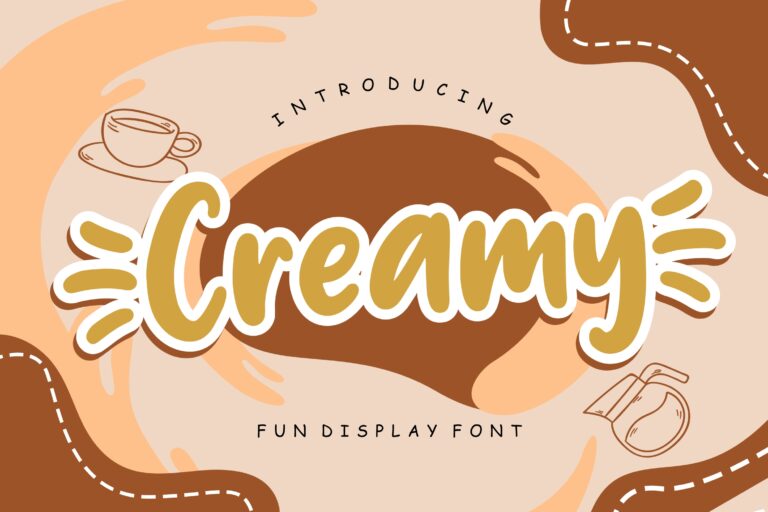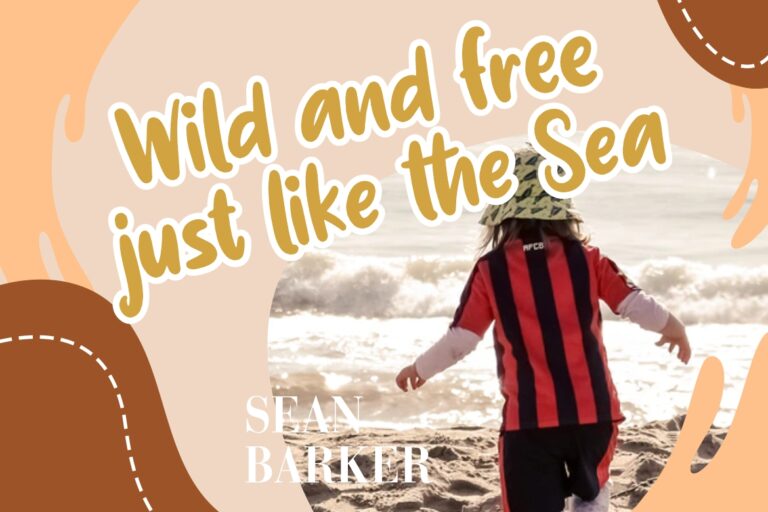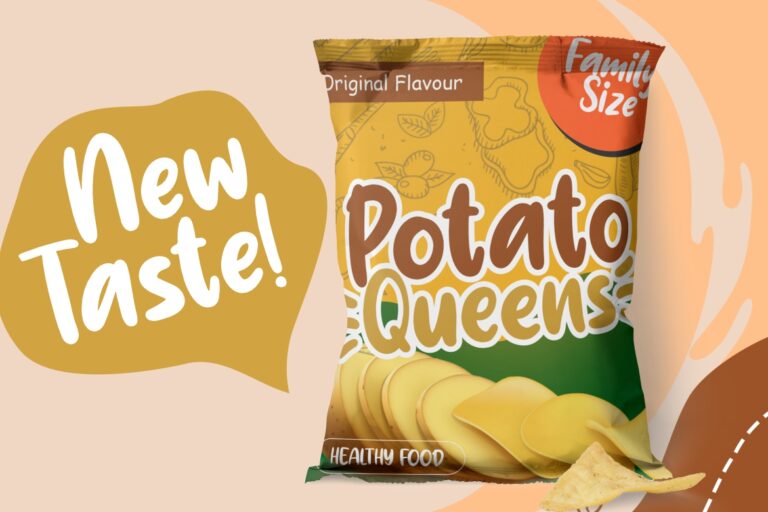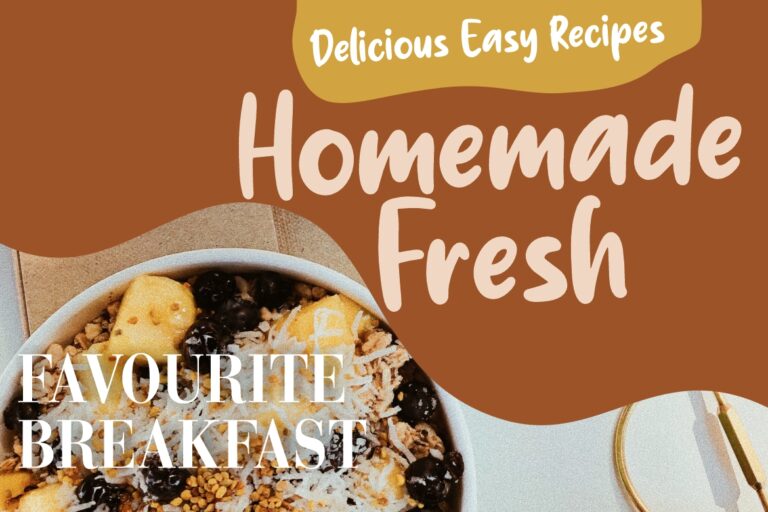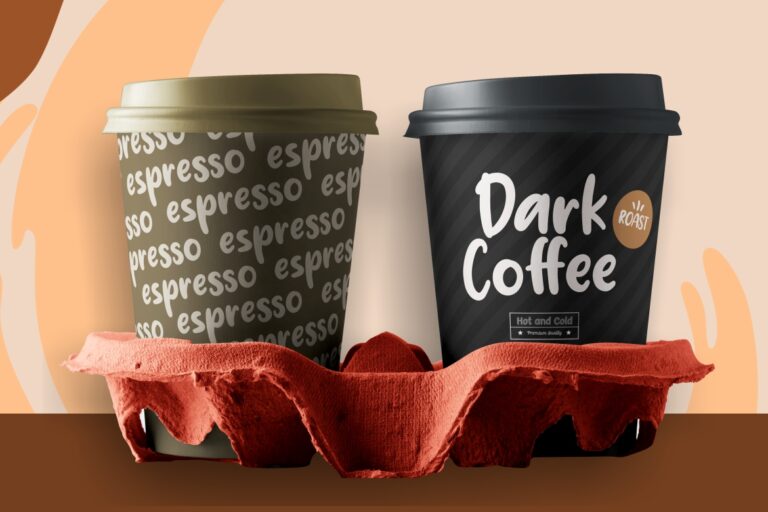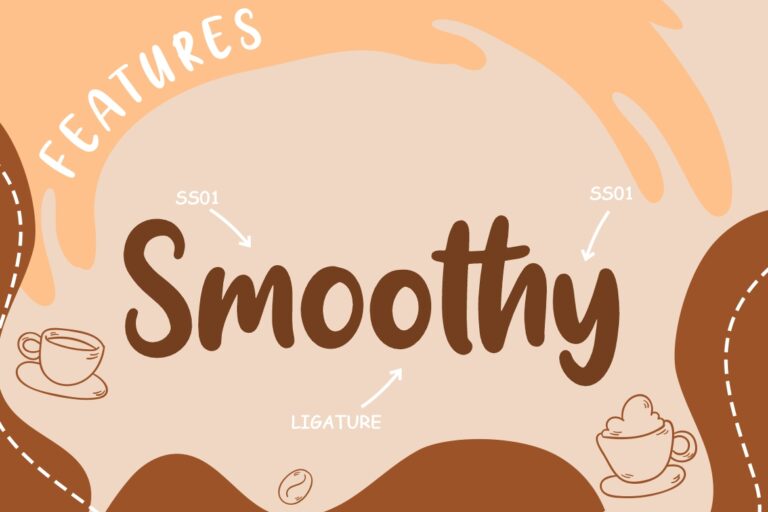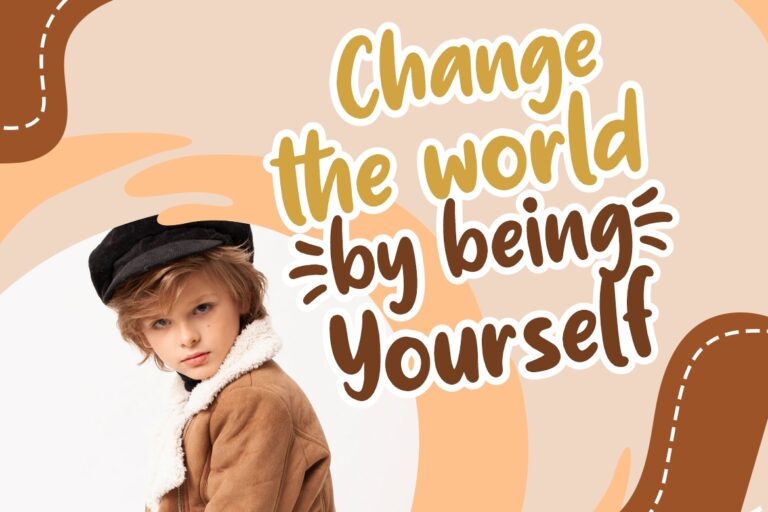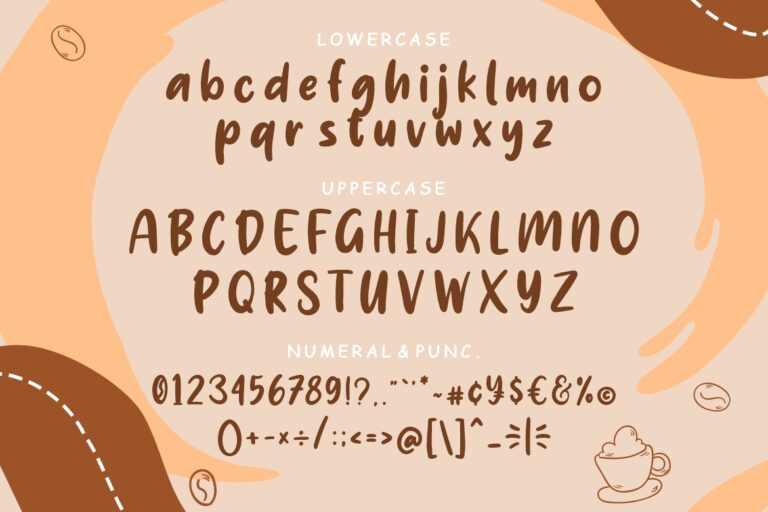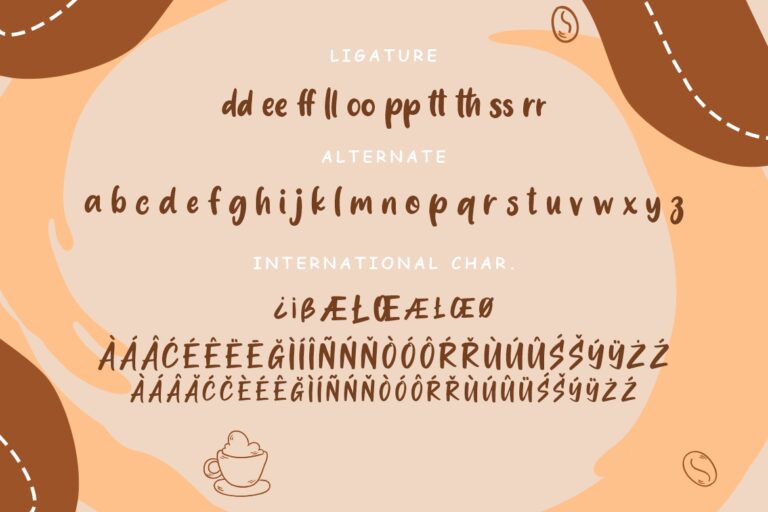
Creamy Fun Children
Creamy is fun display children font that perfect for kindergarten and children event.
Creamy would perfect for photography, watermark, social media posts, advertisements, logos & branding, invitation, product designs, label, stationery, wedding designs, product packaging, special events or anything that need handwriting taste.